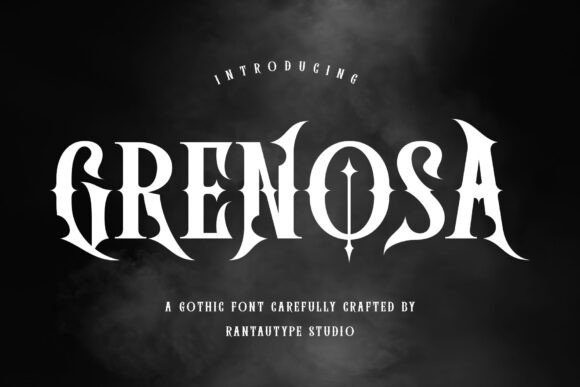
Grenosa Font: The Ultimate Gothic Typeface for Dark and Fantasy Designs
In the realm of typography, few fonts have managed to capture the essence of gothic and Victorian styles as effectively as Grenosa. This stunning font combines the sophistication of gothic typography with a metal aesthetic, making it an ideal choice for horror, dark, and fantasy visual designs. With its stylistic alternates and versatility, Grenosa has become a go-to font for creative professionals looking to add a touch of elegance and mystery to their projects.
What is Grenosa Font?
Grenosa is a gothic font that embodies the grandeur and opulence of Victorian-era typography, while infusing it with a dark and metallic twist. The font’s design is characterized by its intricate details, sharp lines, and ornate flourishes, which evoke a sense of mystery and luxury. Whether you’re working on a horror-themed project, a fantasy novel, or a dark and moody advertising campaign, Grenosa is the perfect choice to add a touch of sophistication and eeriness.
Key Features of Grenosa Font
- Gothic and Victorian Inspiration: Grenosa draws inspiration from traditional gothic and Victorian typography, with a modern twist that makes it perfect for contemporary designs.
- Metallic Aesthetic: The font’s metallic sheen adds a touch of industrial chic to your designs, making it ideal for horror, dark, and fantasy projects.
- Stylistic Alternates: Grenosa comes with a range of stylistic alternates that allow you to mix and match different letterforms to create unique and eye-catching designs.
- Versatility: The font is suitable for a wide range of creative endeavors, from chic lifestyle designs to logotypes, advertisements, photography watermarks, stationery, branding projects, displays, magazines, game design, invitations, corporate branding, product labels, and business projects.
How to Use Grenosa Font
Grenosa is an incredibly versatile font that can be used in a variety of creative projects. Here are some ideas to get you started:
- Horror and Fantasy Designs: Use Grenosa to create eerie and atmospheric designs for horror movies, book covers, or video games.
- Dark and Moody Advertising: Add a touch of sophistication and mystery to your advertising campaigns with Grenosa’s metallic aesthetic.
- Chic Lifestyle Designs: Use Grenosa to create luxurious and high-end designs for lifestyle brands, fashion labels, or beauty products.
- Branding and Corporate Identity: Grenosa is perfect for creating unique and memorable logos, business cards, and stationery for companies that want to stand out.
Benefits of Using Grenosa Font
So why choose Grenosa font for your next project? Here are some benefits of using this stunning typeface:
- Unique and Memorable Designs: Grenosa’s stylistic alternates and metallic aesthetic make it easy to create unique and memorable designs that stand out from the crowd.
- Time-Saving: With Grenosa, you can save time and effort by using a single font that can be adapted to different design projects.
- Professional and Sophisticated Look: Grenosa’s gothic and Victorian inspiration gives your designs a professional and sophisticated look that’s perfect for high-end brands and creative projects.
Tips for Using Grenosa Font Effectively
To get the most out of Grenosa font, here are some tips to keep in mind:
- Experiment with Stylistic Alternates: Don’t be afraid to mix and match different letterforms to create unique and eye-catching designs.
- Use Metallic Colors: Take advantage of Grenosa’s metallic aesthetic by using metallic colors that add a touch of industrial chic to your designs.
- Pair with Other Fonts: Grenosa can be paired with other fonts to create interesting and dynamic designs. Experiment with different font combinations to find the perfect match.
In conclusion, Grenosa font is a versatile and stunning typeface that’s perfect for creative professionals looking to add a touch of elegance and mystery to their projects. With its gothic and Victorian inspiration, metallic aesthetic, and stylistic alternates, Grenosa is an ideal choice for horror, dark, and fantasy designs, as well as chic lifestyle designs, branding projects, and more. So why settle for an ordinary font when you can use Grenosa to create unique and memorable designs that stand out from the crowd?